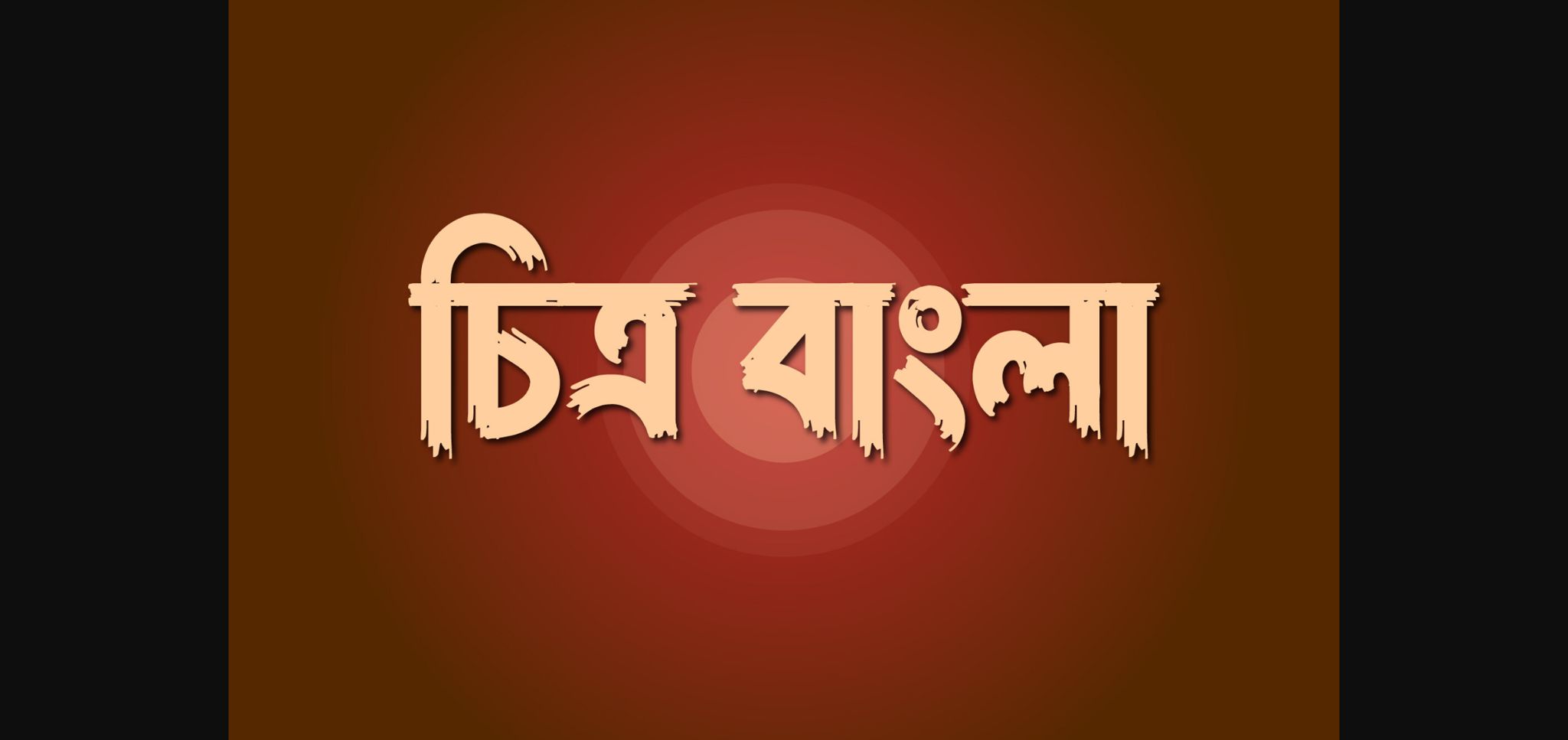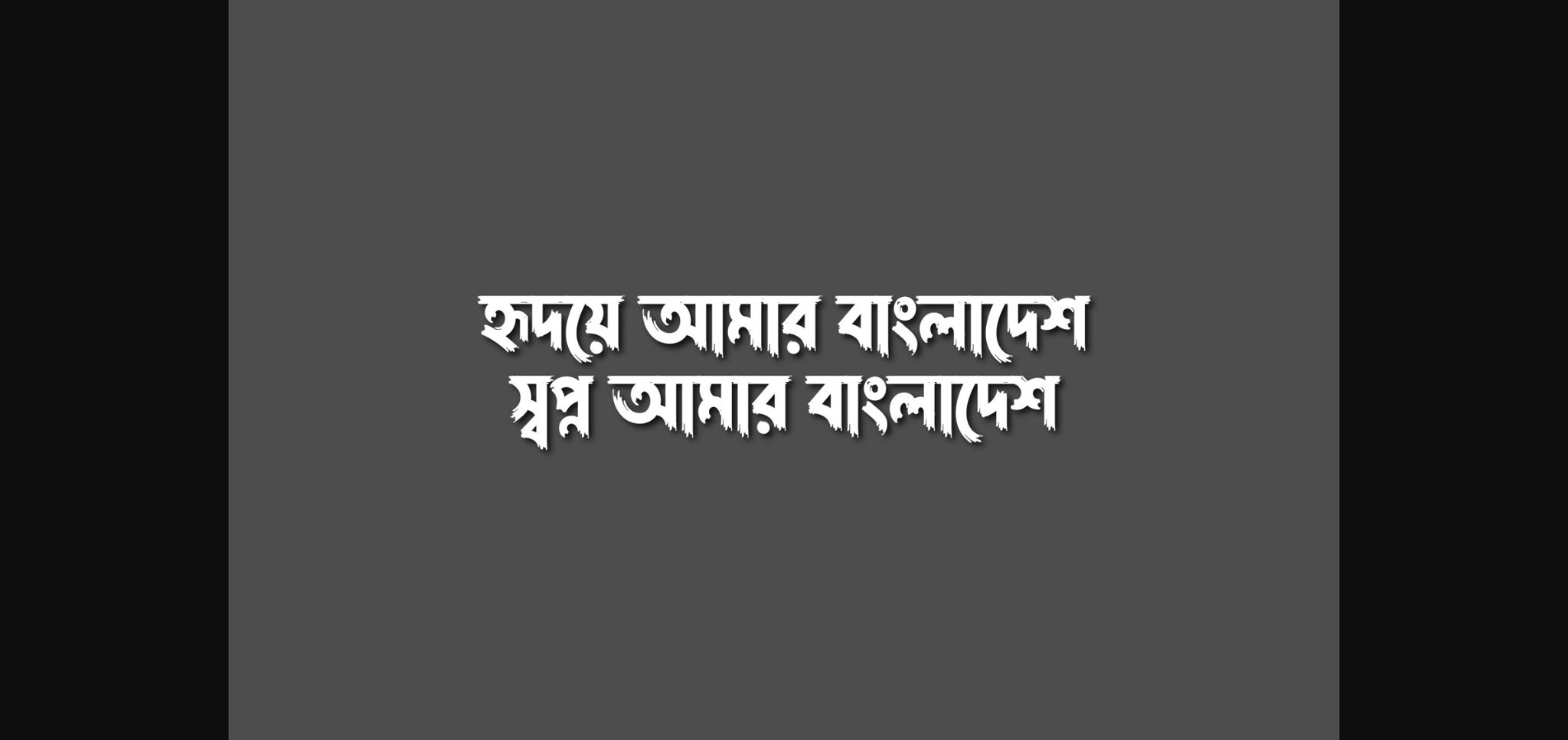
About Chitro Bangla (চিত্র বাংলা ফন্ট) Font
Chitro Bangla stands as a versatile sans-serif Gothic font, epitomizing contemporary excellence, making it an excellent choice for various creative projects such as book covers, T-shirts, and movie titles. Its extensive repertoire of 420 glyphs and 196 distinct characters opens up a boundless realm of creative possibilities, ensuring that your design endeavors are limited only by your imagination.